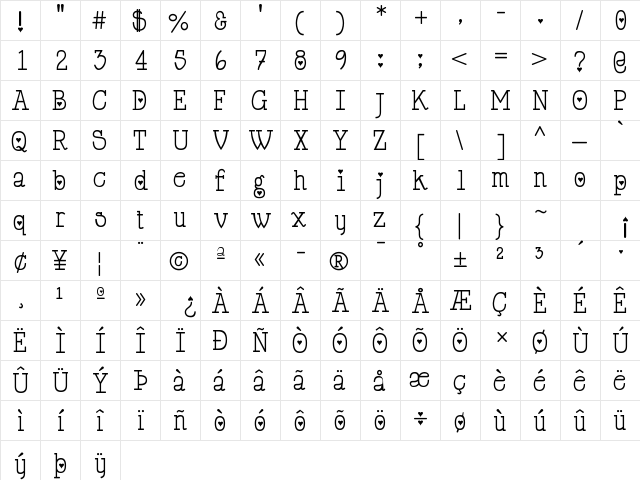
Cupid de Locke Regular
| Designer | Lauren Thompson, "Nymphont" |
Design Context for Cupid de Locke Typeface
Cupid de Locke is a composed and adaptable typeface that performs quietly and consistently across a wide range of design contexts.